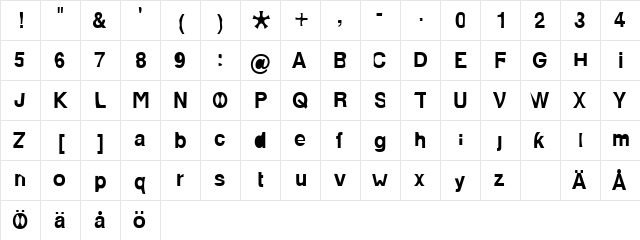
Paolo Normal Font Preview
Paolo Normal
Design Context for Paolo Typeface
Paolo takes a measured approach to typography — its balanced proportions and neutral character make it a reliable workhorse for both digital and print work.